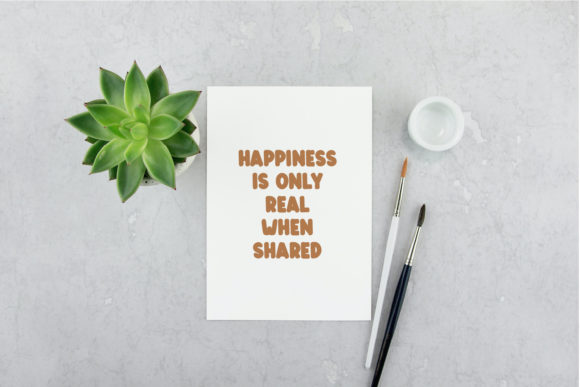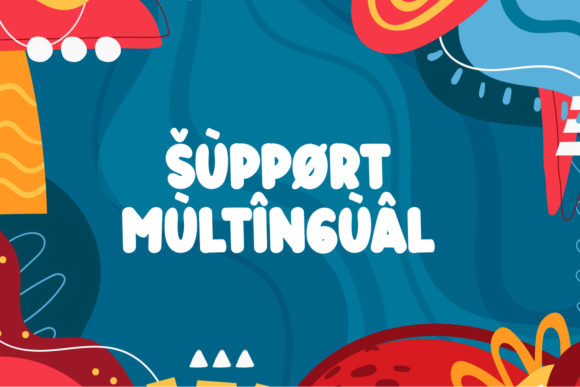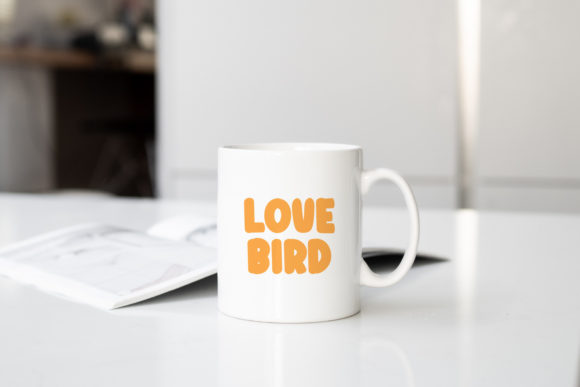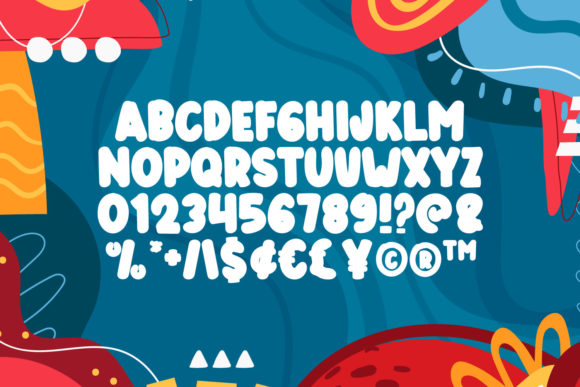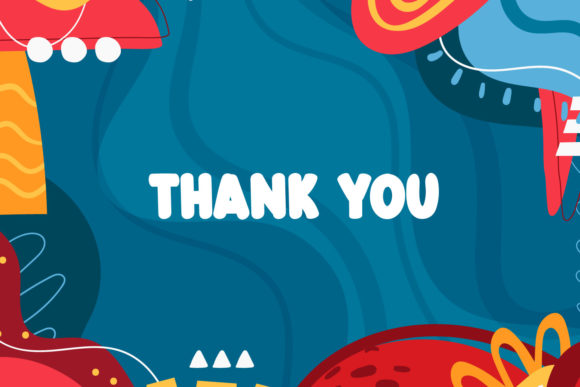
Introduction to Shiny Bright Font
As a designer, have you ever stumbled upon a font that instantly brings a smile to your face and makes your creative project feel like a breath of fresh air? For me, that moment happened when I discovered the Shiny Bright Font. Its vibrant colors and chunky letters are the perfect combination to add a playful touch to any design. Whether you’re working on a children’s activity or a school project, this font is sure to make your designs shine.
What makes Shiny Bright Font truly valuable for designers is its versatility and high-quality design. With its transparent background, you can easily place it over any image or color, making it a versatile design resource. And the best part? It’s available for free download, making it accessible to designers of all levels.
So, are you ready to add a dash of fun and authenticity to your designs? Let’s dive into the world of Shiny Bright Font and explore its endless possibilities.
Key Features of Shiny Bright Font
- Unique, modern design with a transparent background, allowing for easy layering and customization in design resources.
- Shiny Bright Font is available in 6 different font styles, each with its own distinct personality and design element.
Honest Review: Shiny Bright Font
As a designer, I’m always on the lookout for high-quality design resources that can elevate my creative projects. Recently, I stumbled upon the Shiny Bright Font, and I must say, it’s been a game-changer for me.
What works well with this font is its versatility. It’s perfect for both digital and print projects, and its modern aesthetic makes it suitable for a wide range of creative endeavors. I particularly appreciate the fact that it comes with a transparent background, which gives me more flexibility when designing. ✨
Here are some of my favorite features of the Shiny Bright Font:
- High-quality design that’s perfect for both digital and print projects
- Modern aesthetic that’s suitable for a wide range of creative endeavors
- Transparent background for added flexibility
However, there are a few limitations to consider. The font doesn’t come with as many character sets as some other fonts, which can be a drawback for designers working on projects that require extensive text. Additionally, the font’s bold weight can be a bit too bold for some designs. ⚠️
Overall, I’m impressed with the Shiny Bright Font. Its high-quality design, versatility, and free download make it an excellent resource for designers. While it may have some limitations, I believe it’s a valuable addition to any design library.
Tips for Getting the Most Out of Shiny Bright Font
Experiment with different font sizes, colors, and styles to achieve the desired look. Use the font in combination with other design elements to create a visually appealing design. Take advantage of the transparent background to easily blend the font with other design elements.
Shiny Bright Font is ideal for use in creative projects such as infographics, presentations, and marketing materials. It is also suitable for use in digital designs, such as social media graphics and website headers. The high quality of the font makes it a great choice for any design project that requires a professional look.